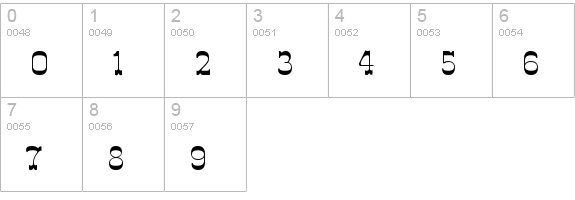
DeLouisville Font Details
DeLouisville font is a stunning display typeface that exudes elegance and sophistication. With its clean lines and classic design, DeLouisville is perfect for adding a touch of luxury to your projects. This versatile font is suitable for a wide range of uses, from branding to editorial design. The best part? DeLouisville font is completely free to use! You can download this exquisite typeface at FontsMarket.com and start incorporating its timeless style into your designs today. Don't miss out on the opportunity to elevate your projects with the beauty of DeLouisville font.